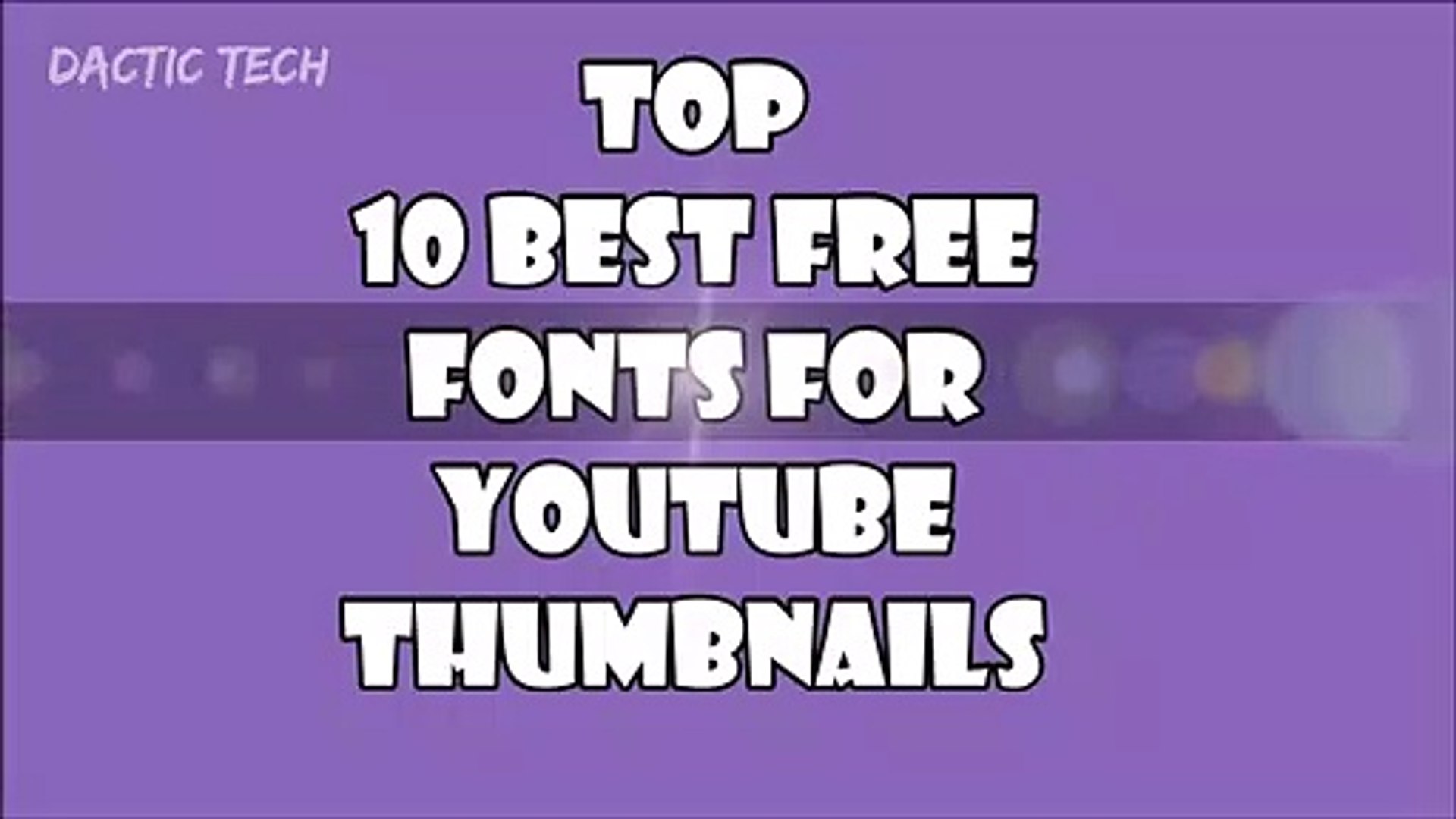
best font style for youtube thumbnail
Some kind of text on top of some kind of image.
Best font youtube thumbnail. What is the best font for youtube thumbnail. When choosing a youtube thumbnail font for your video there are a few things you should consider to best optimize your thumbnail designs. The font face impact and bangers are two of the most commonly used thumbnail fonts due to it being bold and easy to read at small sizes. Always use eye catching and easy to read fonts.
There are tons of fonts on the web today but you want to make sure that youre choosing the best font for your youtube channel. Designing the thumbnails and video titles is an important part of creating a professional youtube channel. 7 best fonts for youtube thumbnails 1. What should you add to a thumbnail.
Bebas neue is a simple yet elegant youtube video font that works brilliantly for any type of content. Best youtube thumbnail font tips tricks. Stay consistent in your youtube text. On this article now we have compiled a listing of one of the best youtube thumbnail fonts that may entice views and can assist your channel develop.
This a very popular youtube font logo often used by many youtubers in their videos but also in their thumbnails. This is another simple yet powerful font that works very well when you want to highlight the title. Were here to guide you through the design process by helping you pick the best youtube font for your channel branding as well as individual videos. Hey folks let us see how we can use best fonts in our thumbnails to get more views on our videos.
Best fonts for youtube thumbnails. Bebas looks great in both thumbnails and eye grabbing banners.